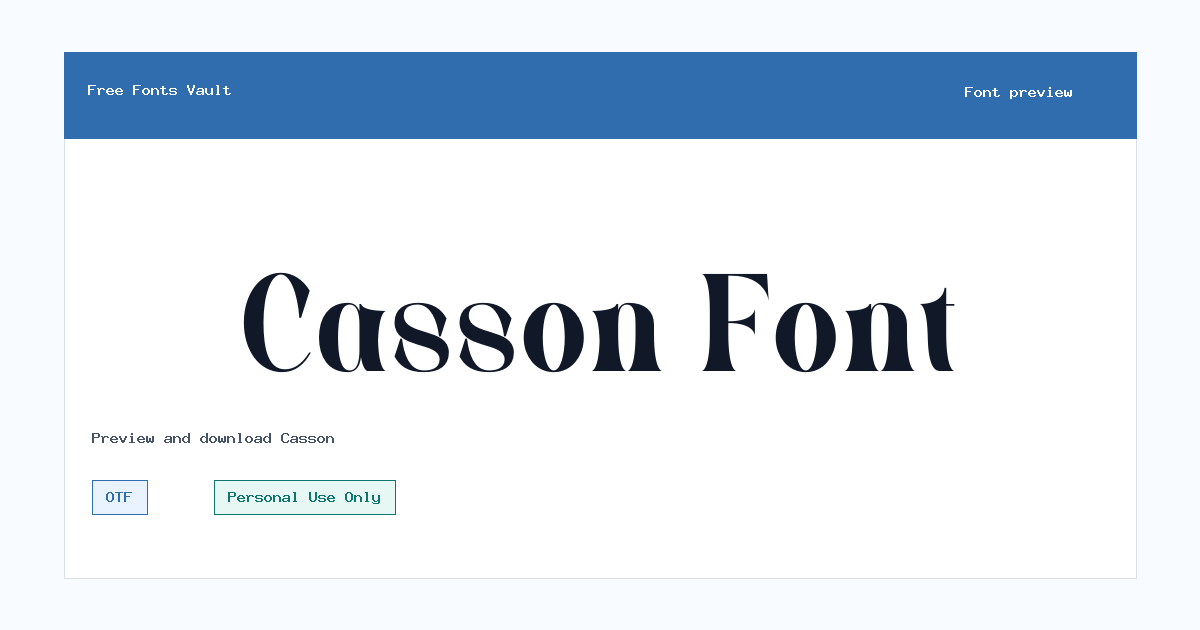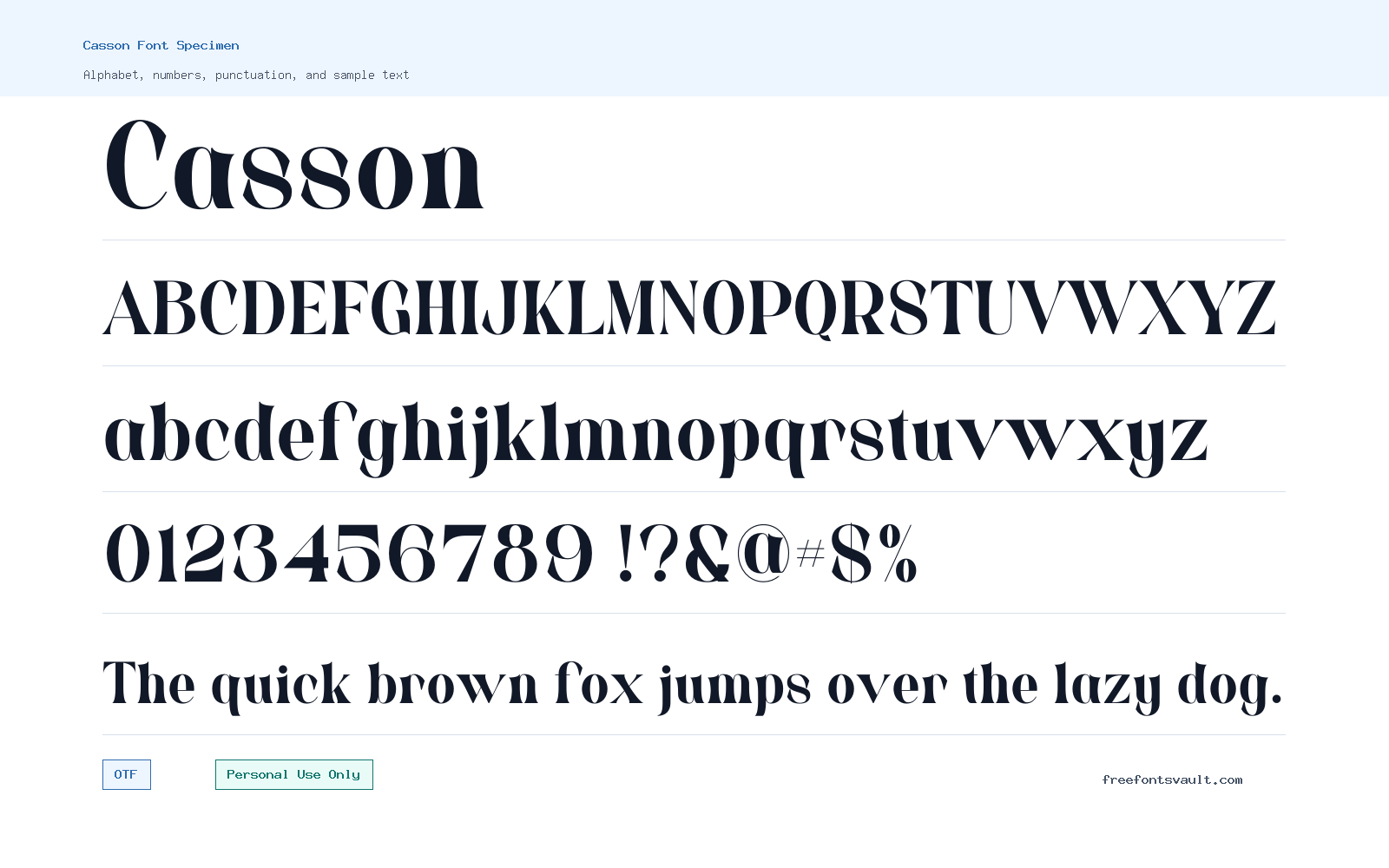
Casson
Casson is a serif font by Biham Santoso, offered in OTF format for personal-use projects. It is a good font to preview when you need a typed look with a more formal, editorial, or display-friendly feel.
Casson is presented as a serif font, which makes it more suitable for projects where letter shape, contrast, and tone matter more than plain utility. Serif fonts often work best when they are tested at the size where they will actually appear, so use the preview tool with your own words before downloading. Try a short brand name, a poster headline, a quote, or a few title-case phrases to see how the spacing and rhythm behave. Since the available style is the regular weight, Casson is easiest to judge in clean layouts where the font itself carries the visual tone without needing many weights or alternates.
For designers, Casson can be explored for personal logo concepts, invitation drafts, editorial headings, mood boards, social graphics, packaging mockups, and poster titles. It may also work in web design mockups when used as a heading face rather than as long body text. Before using it in a logo or client-facing concept, check the license carefully because the listed license is Personal Use Only. For pairing, keep the supporting type simple. A neutral sans serif can help Casson stand out in headings, while a quiet text serif can work if you need a more traditional layout. Avoid pairing it with another highly decorative typeface unless the design is intentionally ornamental, because two strong display voices can make the layout feel crowded.
• Serif font style suited to title, display, and short-text testing
• Personal logo studies, title treatments, and branding mockups
• Posters, invitations, social graphics, editorial headers, and web layout previews
Use Casson mainly for short text where the serif style can be seen clearly. Preview names, headlines, and sample phrases before downloading, and check spacing at the exact size you plan to use. For web mockups, try it as a hero heading or section title rather than long paragraphs. For logo work, treat it as a concept font until the license terms are confirmed for the intended use.
Casson is best tested in short-form design uses such as logos, posters, invitations, headings, social graphics, and web mockups.